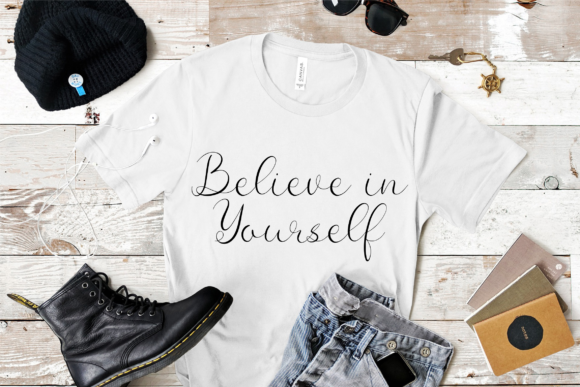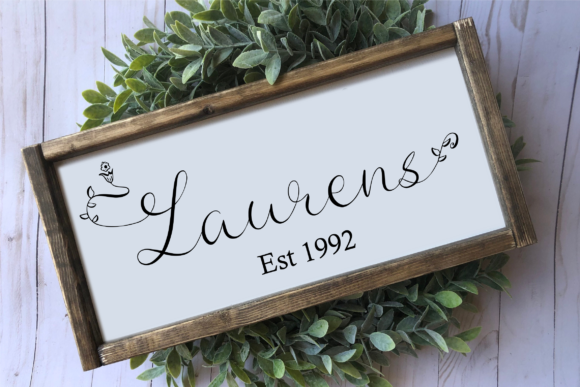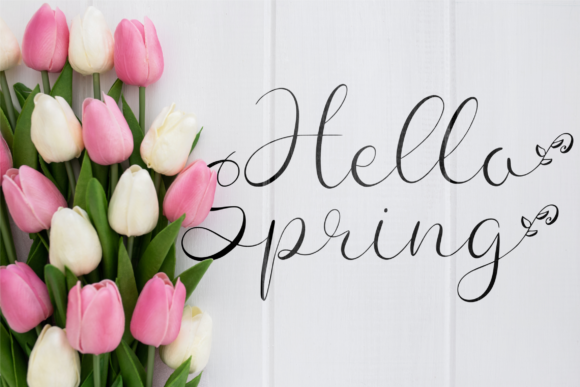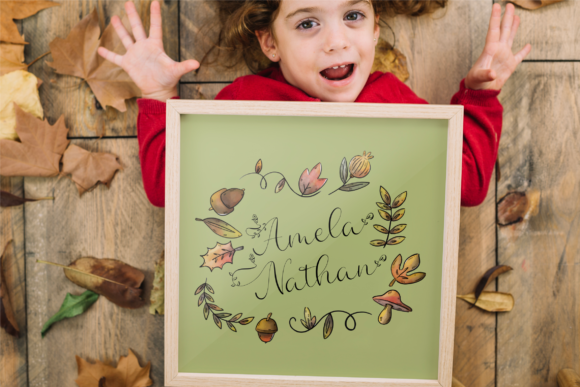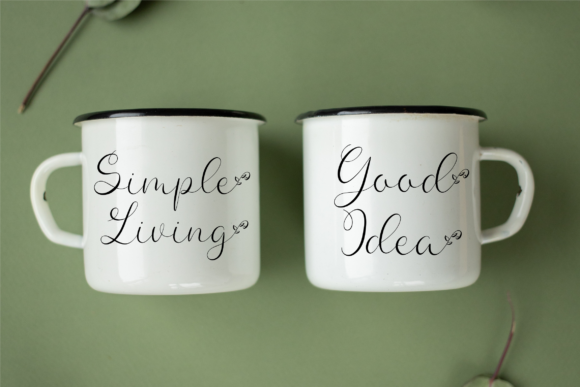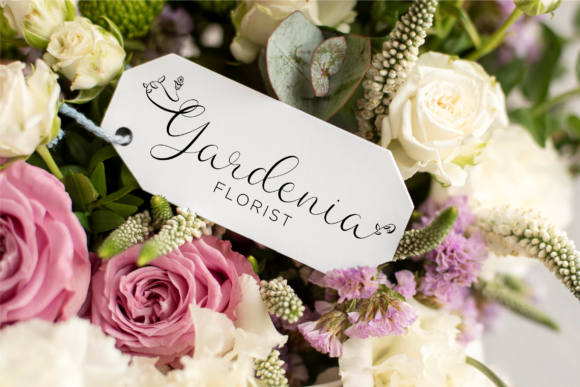
Introduction to Leafdream Font
As a designer, have you ever stumbled upon a font that instantly sparks creativity and sets your imagination ablaze? For me, that moment happened when I discovered the enchanting Leafdream Font. Its delicate, flowing script dance along the baseline is nothing short of magic, transporting me to a world of whimsy and wonder.
Whether you’re working on a free download project or a paid design resource, the Leafdream Font is an invaluable addition to any creative endeavor. Its PUA encoding ensures seamless access to all glyphs and swashes, allowing you to add a touch of luxury to your design without any hassle. With its high-quality design and transparent background, this font is a must-have for any serious designer looking to elevate their creative project to new heights.
Key Features of Leafdream Font
- Unique, whimsical design with a transparent background, allowing for seamless integration into various backgrounds.
- Designed to be highly customizable, with a wide range of font sizes, colors, and effects possible.
- Perfect for use in graphic design, digital art, and other creative projects where a unique, high-quality font is required.
Honest Review: Leafdream Font
I recently stumbled upon the Leafdream Font, a free download that’s quickly become a valuable design resource. The first thing that caught my attention was the unique, whimsical style that makes it perfect for creative projects.
- ✨ High-quality vectors that render beautifully
- ✨ A wide range of characters, including special characters and punctuation
- ✨ Transparent background option for seamless integration into your designs
While I appreciate the attention to detail and overall aesthetic, I do have a few reservations.
- ⚠️ Limited font weight options (only two weights available)
- ⚠️ Some characters may require manual kerning to achieve optimal spacing
Overall, I’m impressed with the Leafdream Font’s potential for adding a touch of magic to your designs. With a little creative workarounds for its limitations, this free download can be a valuable addition to your design library. Whether you’re working on a high-end branding project or a fun, illustrative design, the Leafdream Font is definitely worth exploring.
How to Use Leafdream Font
Tips for Getting the Most Out of Leafdream Font
To get the most out of the Leafdream Font, use it in creative projects that require a touch of elegance and sophistication. Consider using it with a transparent background to add a sense of depth and dimension. Experiment with different font sizes and styles to create visually appealing text.
The Leafdream Font is perfect for designing wedding invitations, business cards, and other marketing materials. You can also use it in graphic design projects, such as posters, flyers, and brochures. Its high-quality design and transparent background make it an ideal choice for creative projects that require a touch of sophistication.
Yes, the Leafdream Font features a transparent background, allowing you to easily layer it over any image or design element. This makes it an ideal choice for designers working on creative projects that require a high level of flexibility and customization.